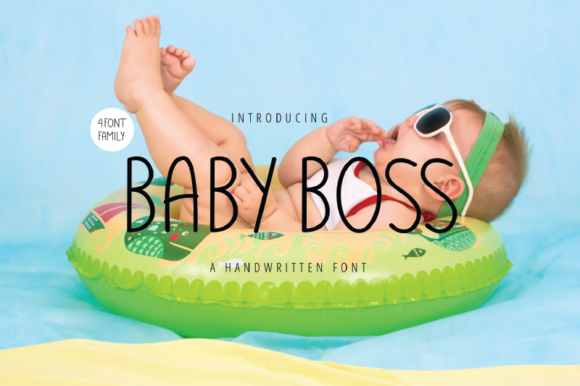
Adding a Touch of Whimsy to Your Design
Who hasn’t felt that spark of inspiration when working on a new project? You know, that moment when everything clicks and your creative vision starts to take shape. For many designers, it’s the perfect time to experiment with new fonts and styles that capture the essence of their idea. And that’s where the charming Baby Boss Font comes in – a delightful sans font that adds a lighthearted touch to any design.
Whether you’re working on a playful brand identity or a whimsical advertisement, Baby Boss Font is the perfect tool to bring a smile to your audience’s faces. Its playful nature and versatility make it a valuable asset for designers looking to add a touch of whimsy to their work. By incorporating Baby Boss Font into your design, you can create a unique and engaging visual identity that sets your brand apart from the rest.
Baby Boss Font Key Features
- Font Style: Casual, playful, and modern sans-serif font.
- Unique Characteristics: The font features rounded edges, smooth curves, and a friendly feel, making it perfect for branding and marketing materials.
Baby Boss Font Review
I recently had the chance to work with the Baby Boss Font, and I must say it’s a unique and quirky addition to any design project. ✨ One of the things that stands out about this font is its playful, modern aesthetic. It’s perfect for creating eye-catching headings and titles that demand attention.
Here are some of the things that work well with the Baby Boss Font:
- ✨ Unique character set that’s perfect for creating a distinctive brand identity
- ✨ Highly legible, even at small font sizes
- ✨ Excellent for use in headings, titles, and other display text
- ⚠️ May not be suitable for body text due to its playful, informal feel
- ⚠️ Can be difficult to read in certain font sizes or line heights
- ⚠️ May not be suitable for formal or traditional branding
Overall, the Baby Boss Font is a great addition to any designer’s toolkit. While it may not be suitable for every project, it’s perfect for creating bold, attention-grabbing headlines and titles. With a little creativity and experimentation, you can unlock the full potential of this unique font.
Tips for Getting the Most Out of Baby Boss Font
Here are some tips for getting the most out of Baby Boss Font:
– Use it for playful and creative designs.
– Combine it with other bold fonts for a striking contrast.
– Experiment with different font sizes and colors to create visual interest.
– Use it for branding and logo design to create a memorable impression.
Some common use cases for Baby Boss Font include:
– Social media graphics and posts.
– Marketing materials and brochures.
– Branding and logo design.
– Playful and creative designs for websites and apps.